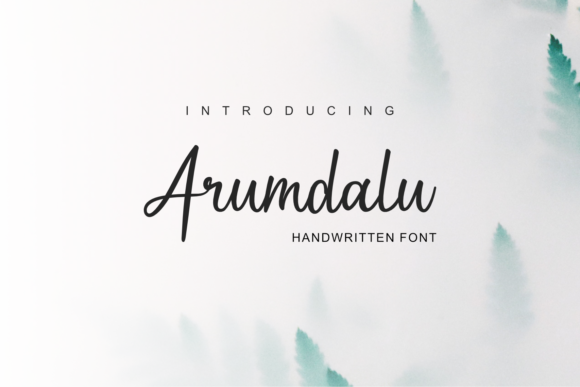
Prepare yourself to be mesmerized by Arumdalu, a meticulously handcrafted script font that exudes elegance and charm. Designed by the talented romlittera, this font family effortlessly combines simplicity and style, making it a versatile choice for any creative project.
Immerse yourself in the beauty of Arumdalu's handwritten characters. Each stroke and curve is lovingly crafted, resulting in a font that is easy on the eyes and a joy to read. Its natural flow and graceful lines add a touch of sophistication to your designs, making them stand out from the crowd.
With Arumdalu, versatility is key. Whether you're creating stunning invitations, eye-catching social media posts, or heartfelt personal letters, this font family effortlessly adapts to suit your needs. Its wide range of applications makes it a must-have for any designer's toolkit.
Unleash your creativity and let Arumdalu transform your projects into captivating works of art. Experience the joy of using a font that not only enhances your designs but also reflects your unique style and personality. Embrace the beauty of Arumdalu today and elevate your creative journey to new heights.